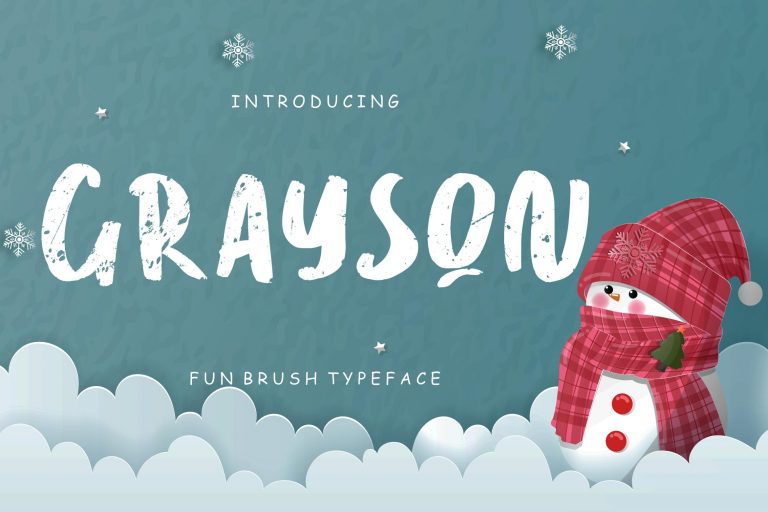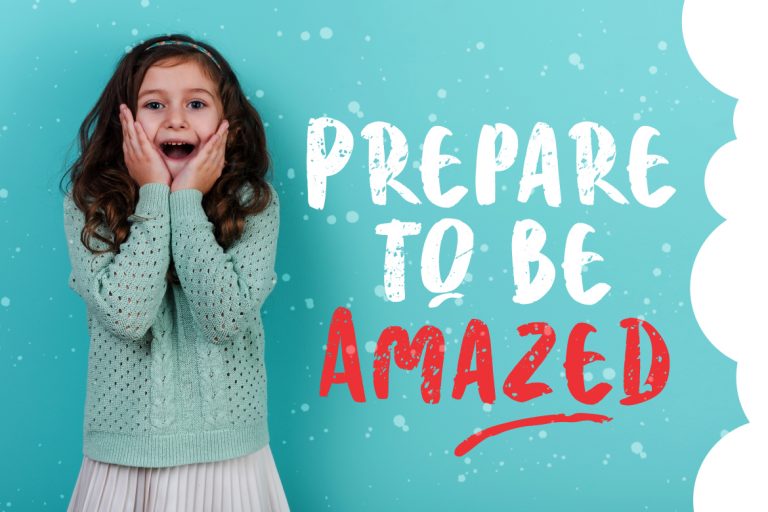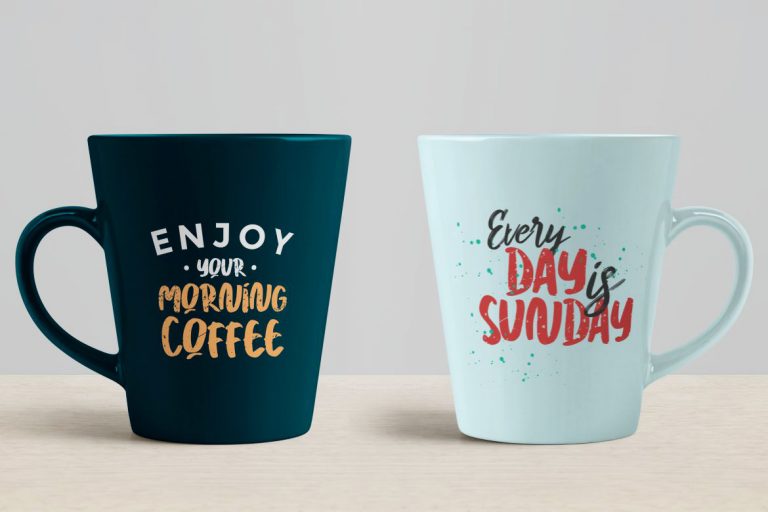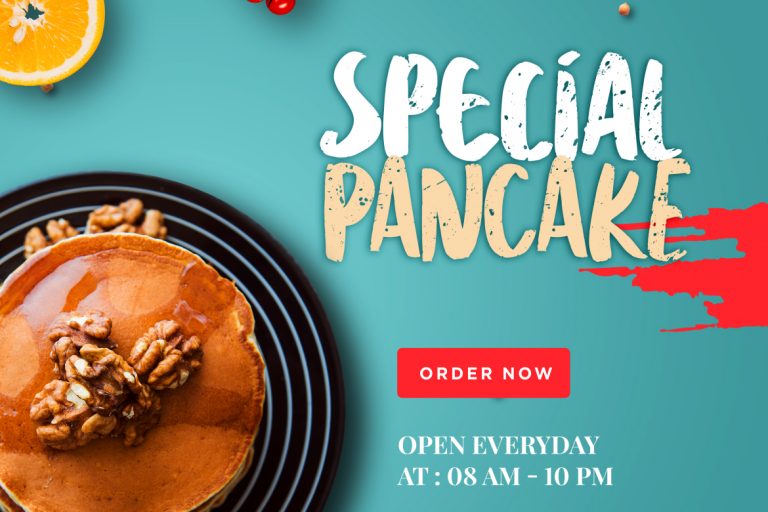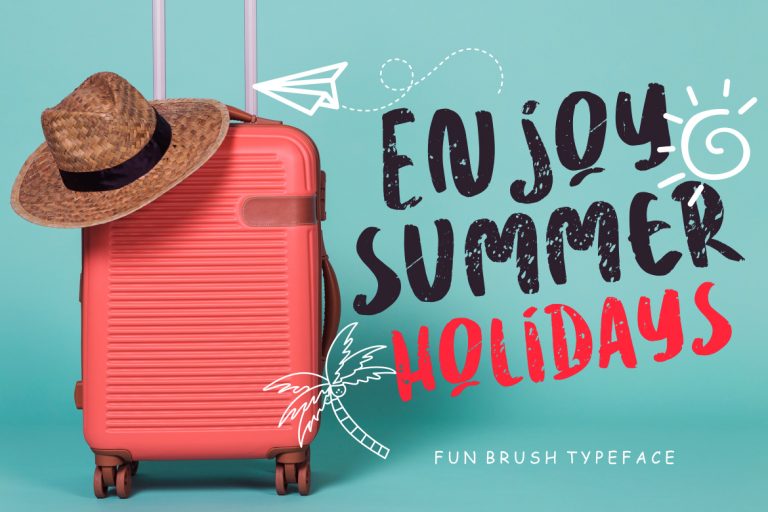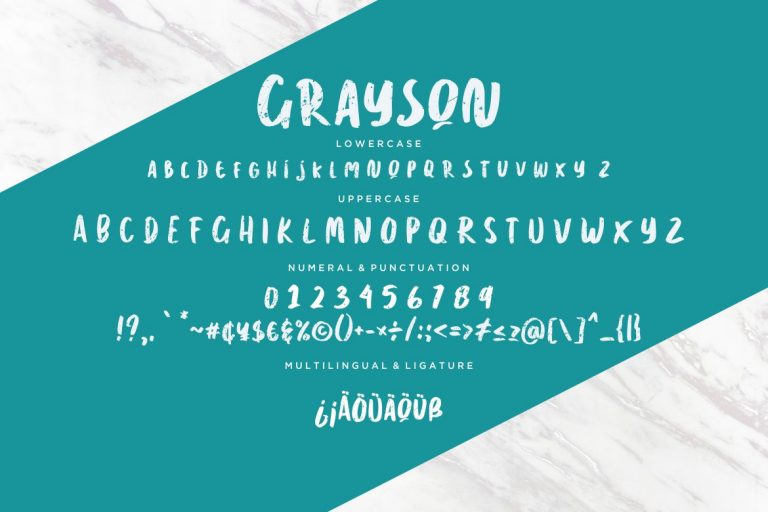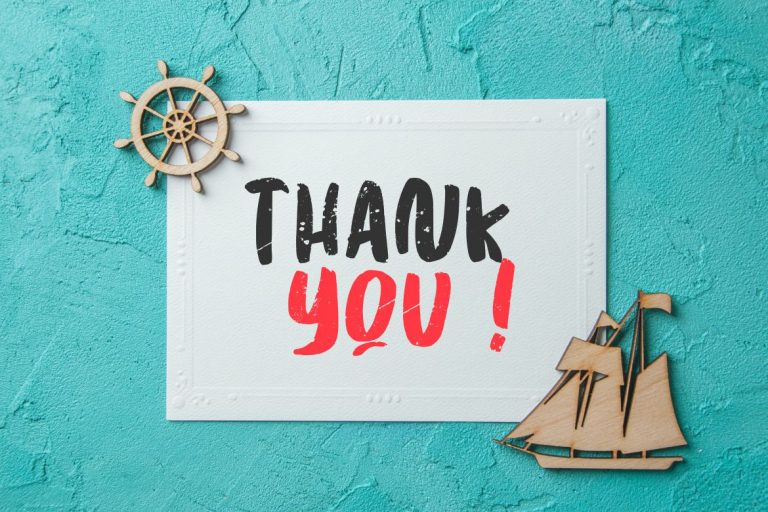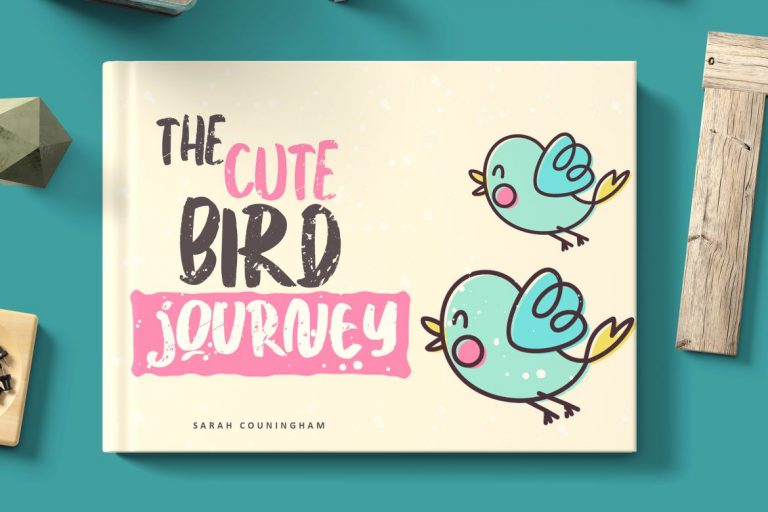
Grayson is a fun brush font for children and kindergarten and christmas occasions.
Grayson is perfect for branding projects, logo, wedding designs, social media posts, advertisements, product packaging, product designs, label, photography, watermark, invitation, stationery and any projects that need handwriting taste.
- Fonts include multilingual support for; ä ö ü Ä Ö Ü ß ¿ ¡
Grayson Fun Brush Typeface